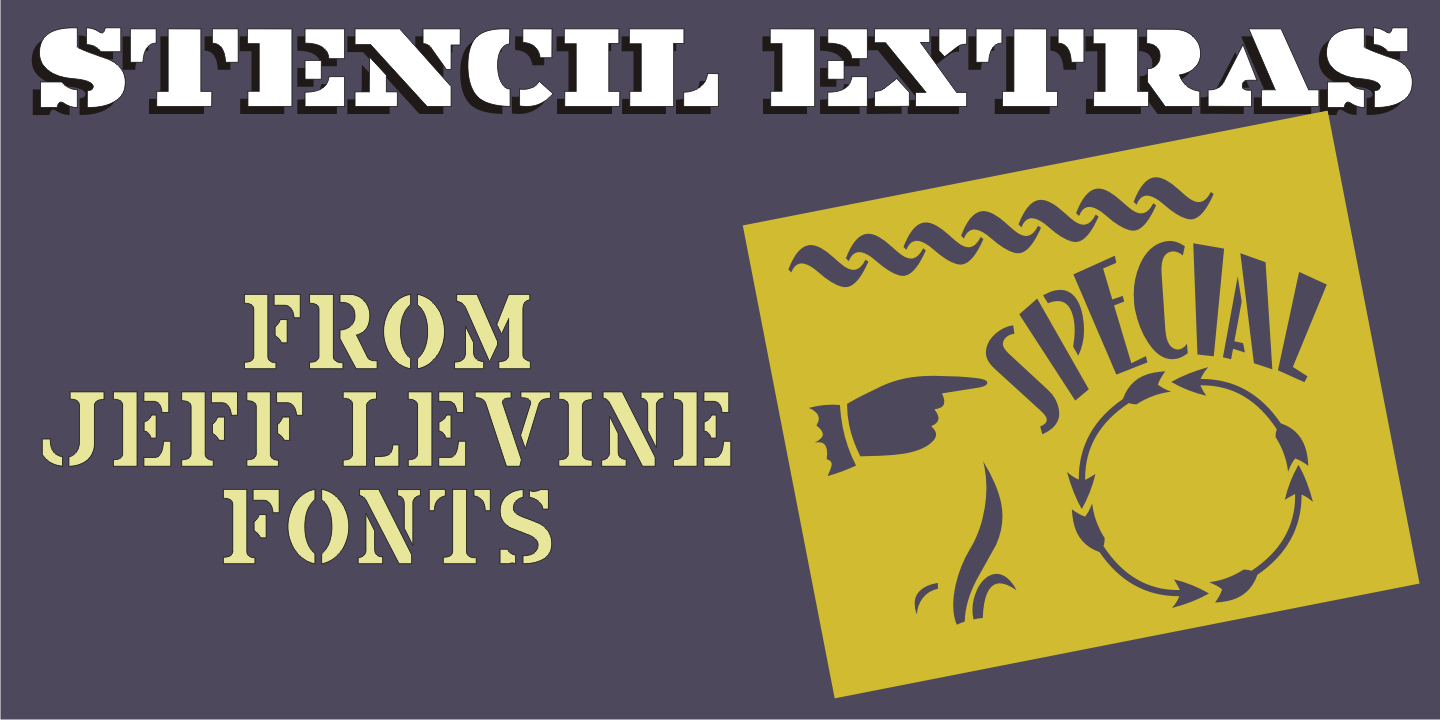
Stencil Extras
Stencil Extras JNL contains twenty-six stencil borders, frames, arrows, pointing hands, plants, wildlife and decorative embellishments all re-drawn from vintage source material.